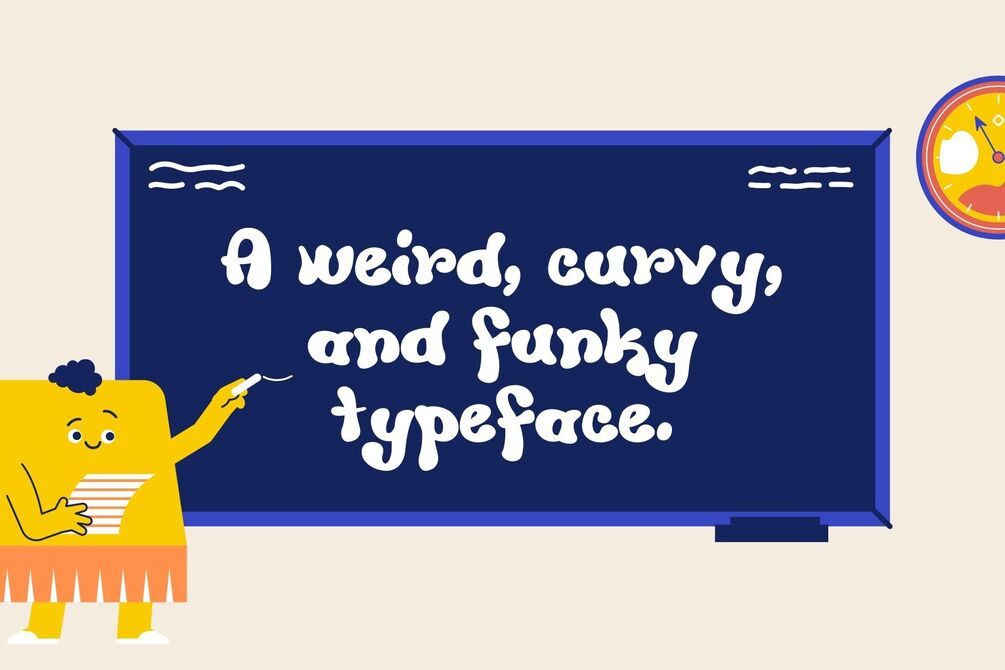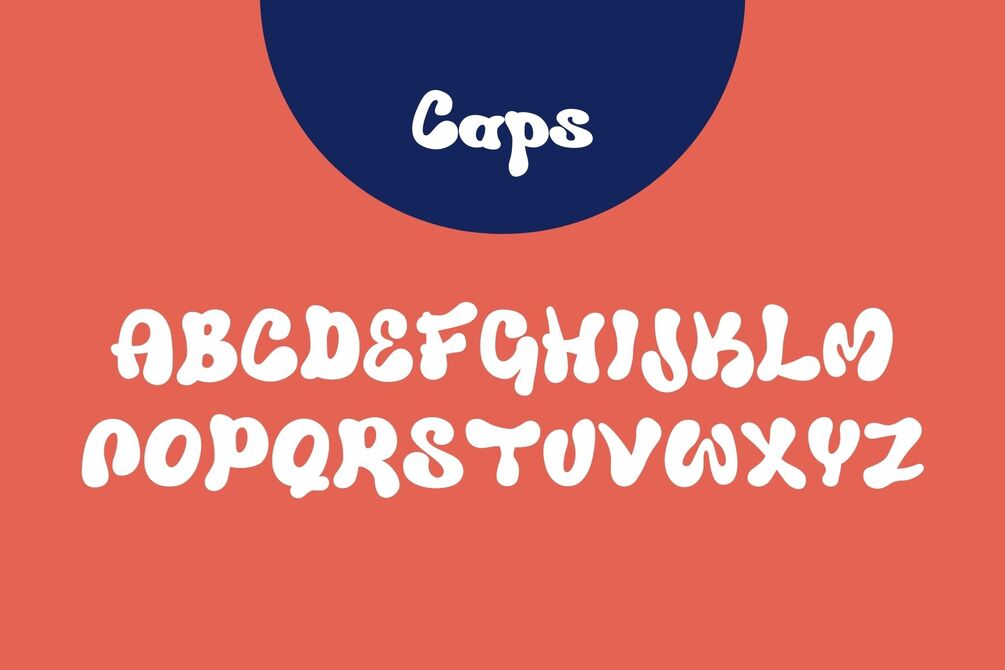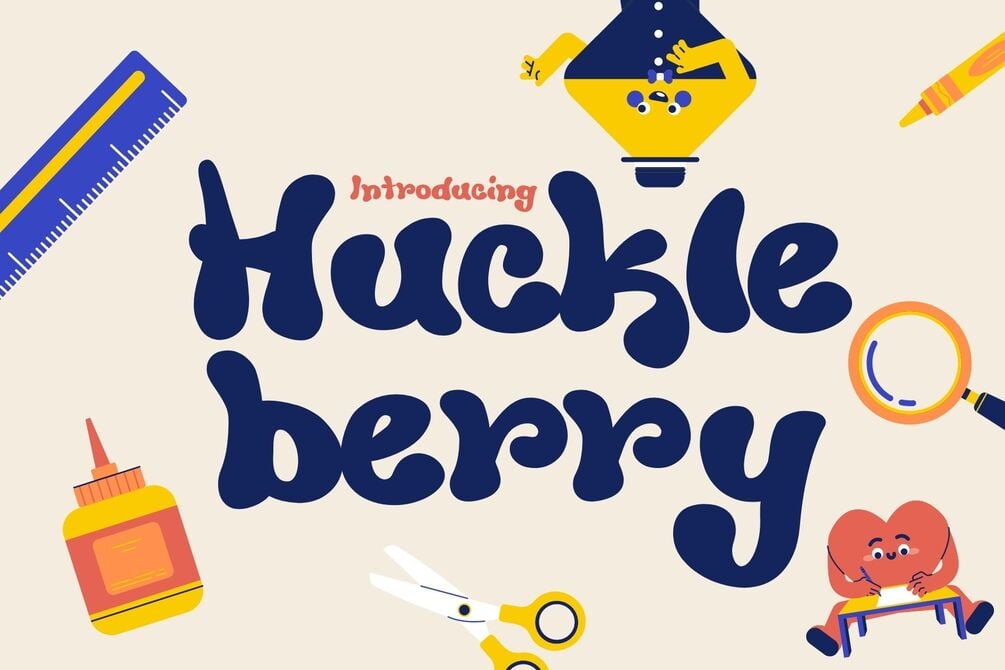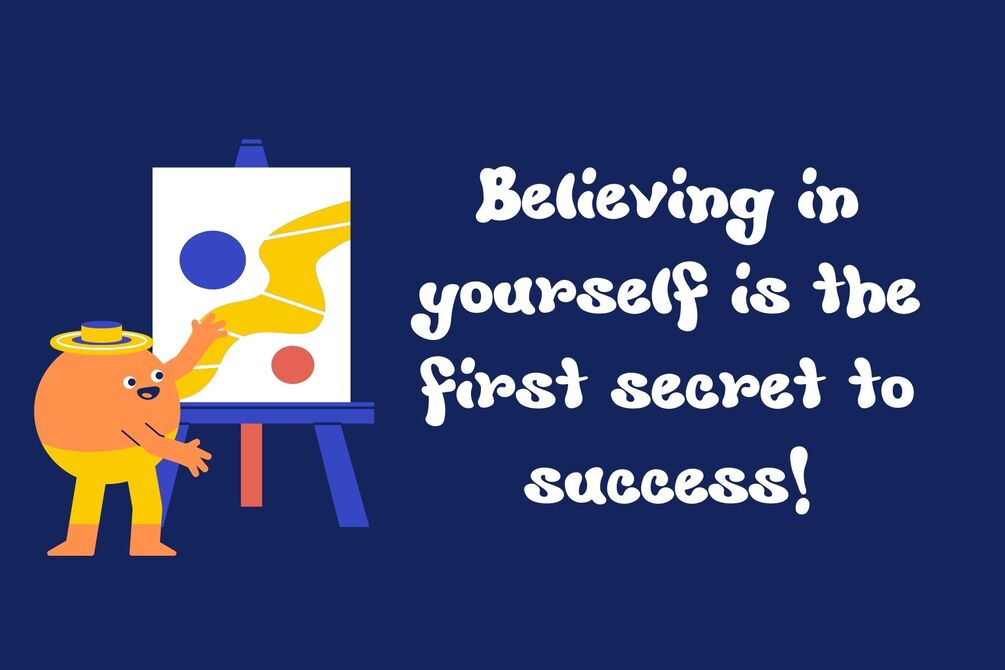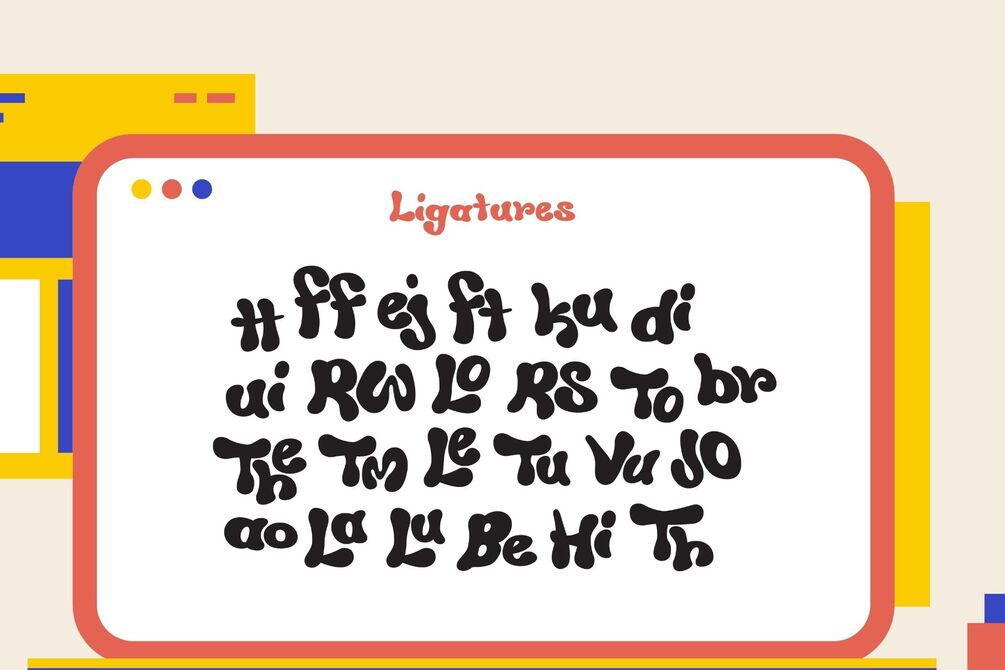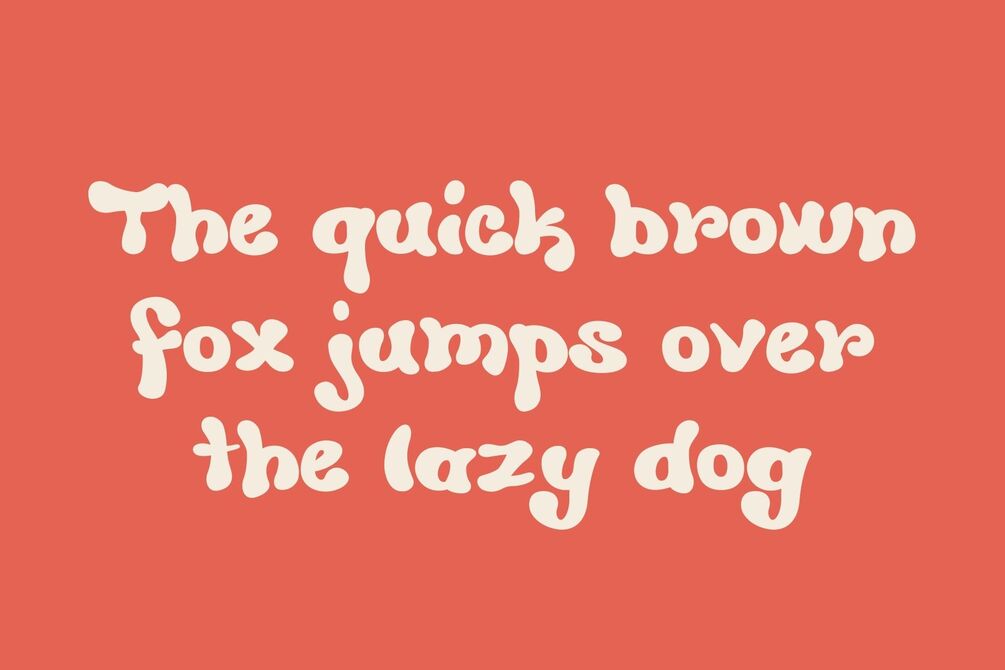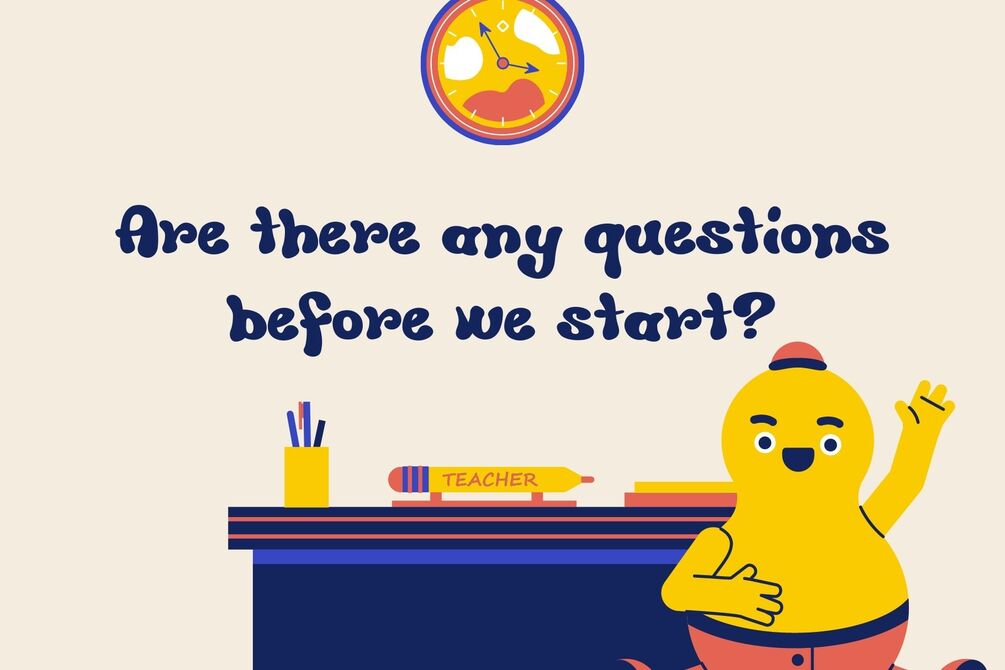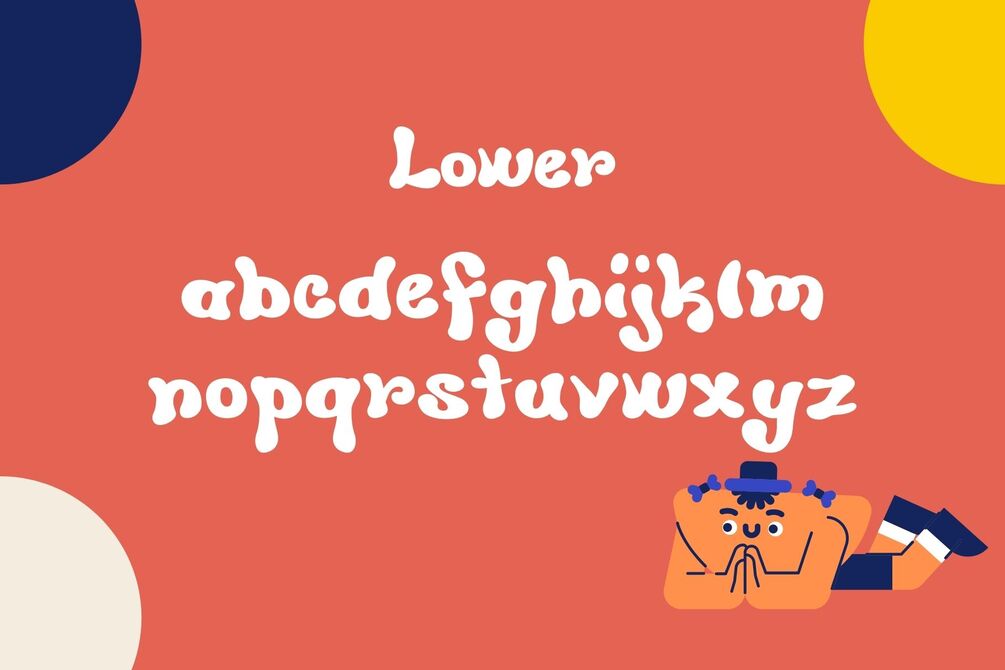
Huckleberry - Fun & Quirky Typeface
Huckleberry is a lighthearted and fun typeface. As kids we never took life seriously and this font follows that motto. Its curvy, quirky, and playful letterforms are meant to draw the viewer in in a calm, peaceful, and inviting way.
Huckleberry is perfect for playful school presentations, quotes, branding, packaging, birthday invitations, and so much more. As an additional icing on the cake, this font includes fun and easy to use ligatures. which you can access via OpenType capable software (like Photoshop, Illustrator, Indesign).